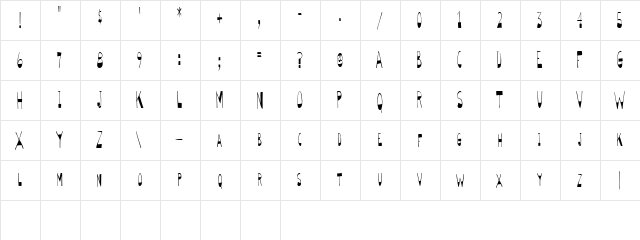
BigBottomTall Skinny Regular
Design Context for BigBottomTall Skinny Typeface
BigBottomTall Skinny offers clean, dependable letterforms without strong stylistic allegiance, making it a practical choice for designers who need flexibility.